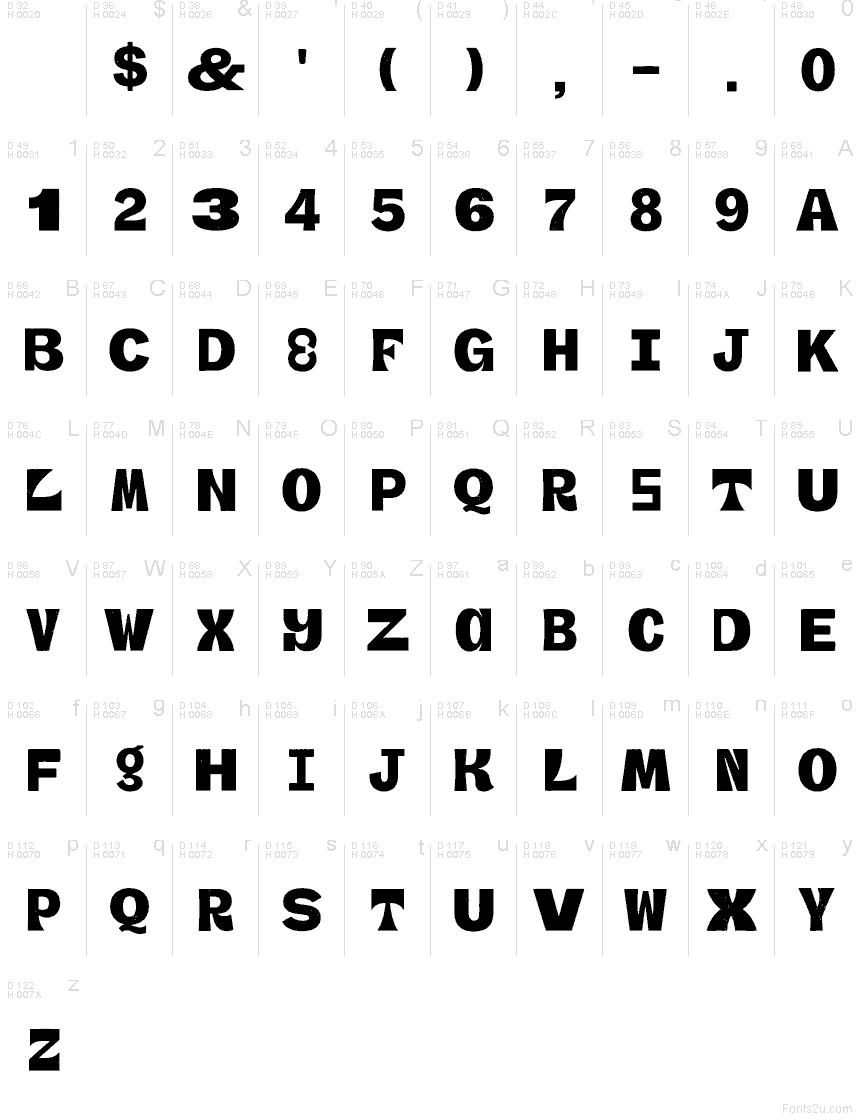
HasThERight
HasThERight font by Dimitri Castrique is a free decorative display typeface that looks like it’s been stamped, scraped, and battered into place. Chunky black shapes crash into narrow gaps, rounded forms butt up against sharp wedges, and the subtle speckled texture makes every word feel loud, handmade, and a little unruly. The rhythm is irregular in a deliberate way, so lines of text feel more like a poster you’d see wheat-pasted on a wall than something laid out on a grid.
Using HasThERight, your titles grab attention before anyone reads a single word, which makes this free font a natural fit for gig posters, protest graphics, zines, album covers, streetwear branding, and bold social tiles. It thrives at big sizes where the gritty details can breathe, while short phrases and stacked words gain real physical weight. Pair it with a clean, condensed sans-serif for body text to let HasThERight handle the shouting while the companion font handles the details.